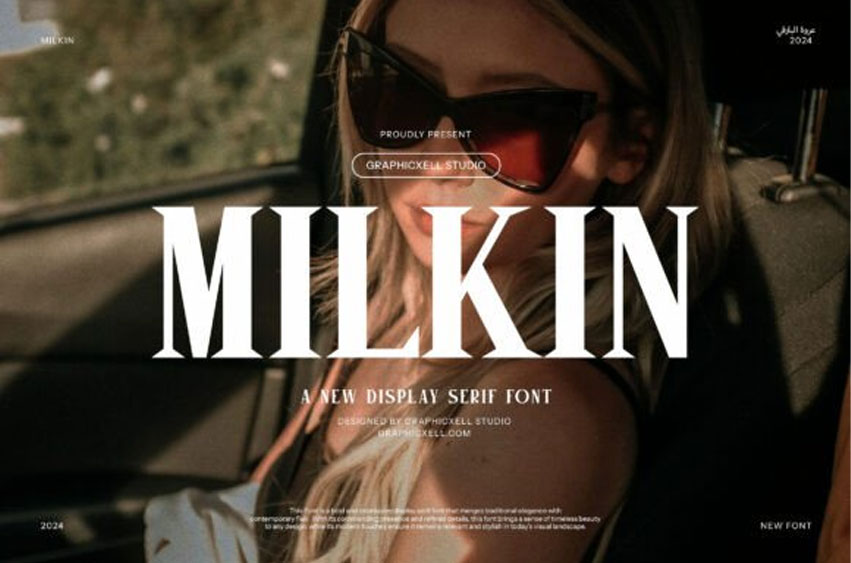
Milkin Font
Milkin Font is a stylish and graceful serif font with smooth curves and a modern look.
It’s perfect for creating elegant designs, like logos, invitations, and posters, giving a classy and polished feel to any project.